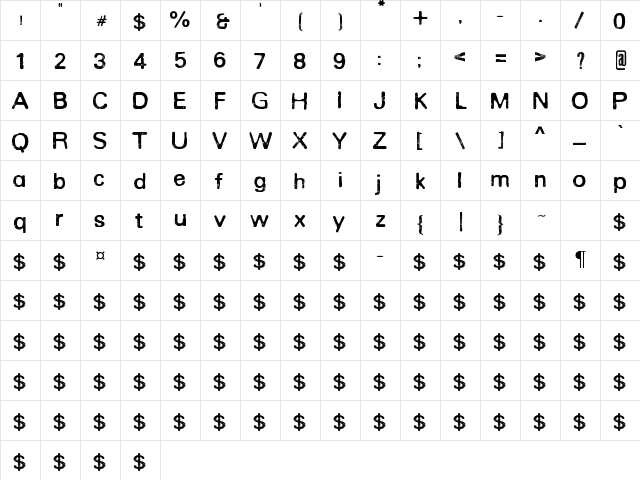
Rounded Eroded Regular
Design Context for Rounded Eroded Typeface
Rounded Eroded embraces imperfection — its rough, textured character adds raw authenticity to designs that want to feel lived-in and unconventional.
Suited to punk-influenced zines, underground music branding, streetwear, and raw, anti-corporate design.
Pro Tip: Pair Rounded Eroded with intentionally raw or lo-fi design elements. Fighting against it with overly polished surroundings will undermine its personality.